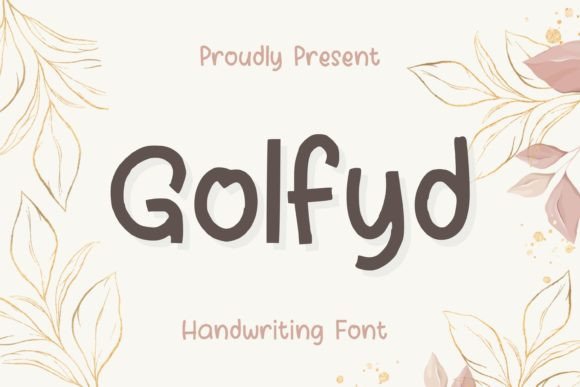
Dive into the world of Golfyd Font, a captivating script font that exudes friendliness and casual charm. Its enchanting handwritten style adds a personal touch to any creative endeavor, making it the perfect choice for a wide range of projects.
Unleash your creativity with Golfyd Font, designed to make your words dance off the page. Whether you're a seasoned designer or just starting, this font's user-friendly nature makes it accessible to all skill levels. Let Golfyd Font guide you on a journey of boundless expression, leaving a lasting impression on your audience.
With Golfyd Font, transform your designs into works of art. Its elegant curves and playful strokes bring a touch of whimsy to any project. Imagine wedding invitations that feel like warm embraces, business cards that leave a lasting impression, or social media posts that pop with personality. Golfyd Font is your key to creating designs that resonate and captivate.
Step into a world of endless possibilities with Golfyd Font. Its versatility knows no bounds, making it the perfect companion for crafting projects, digital designs, presentations, and greeting cards. Elevate your creativity and let Golfyd Font ignite your imagination.
Say goodbye to boring, conventional fonts and embrace the playful spirit of Golfyd Font. Its unique charm adds a touch of magic to any project, making it the perfect choice for those who dare to be different. Join the creative revolution and let Golfyd Font lead you on an unforgettable journey of self-expression.